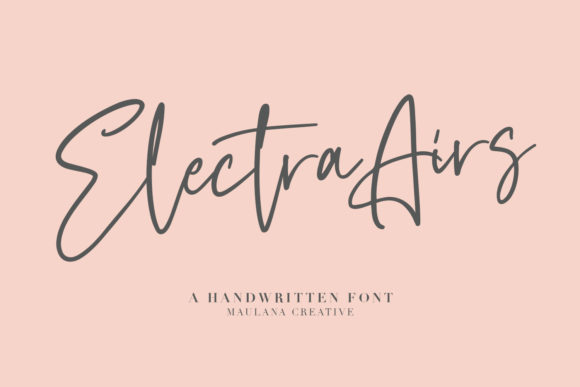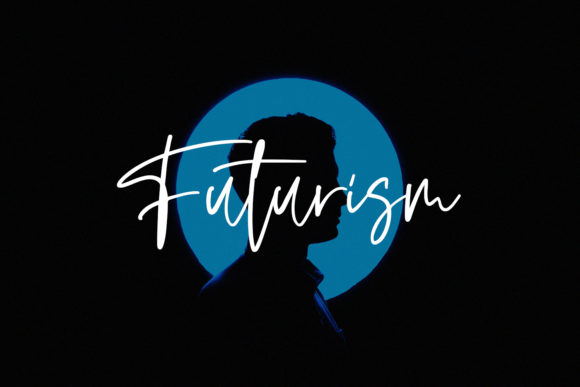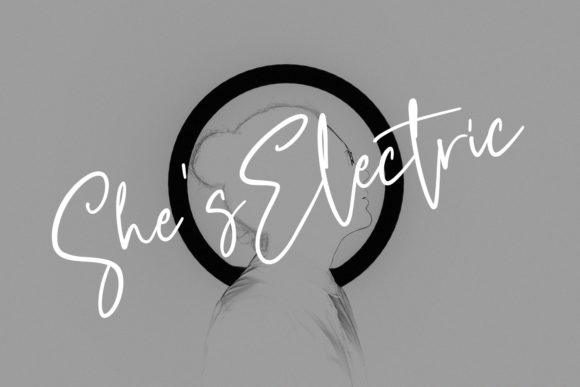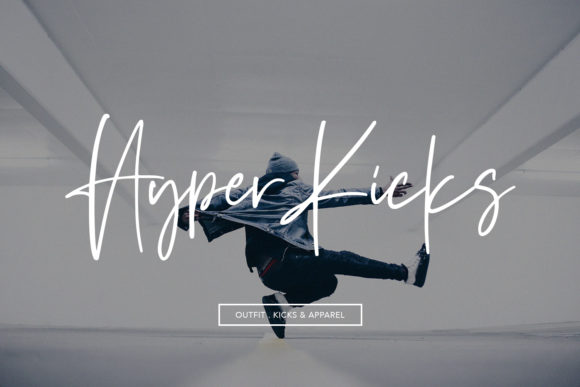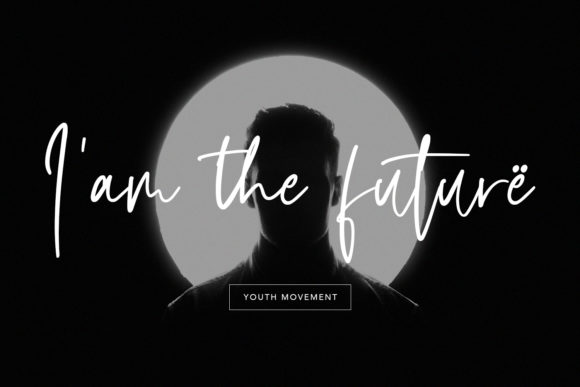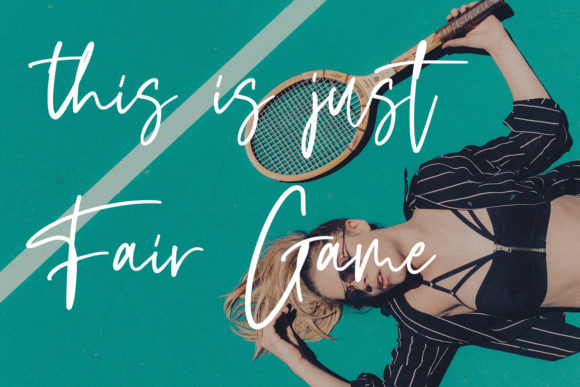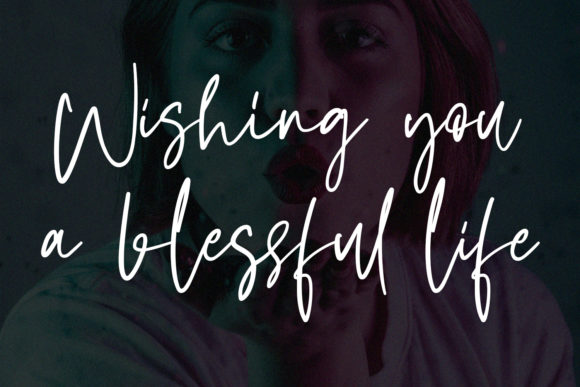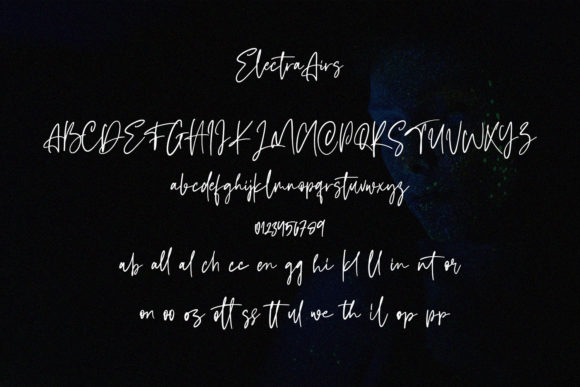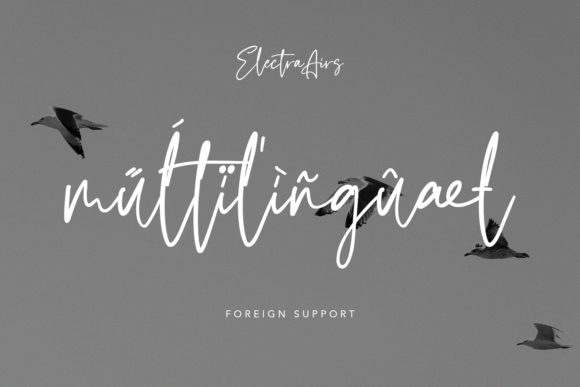
Electra Airs Font
About Electra Airs Font
Electra Airs is a cute, soft hand-lettered script font. Fall in love with its authentic feel and use it to create gorgeous wedding invitations, beautiful stationary art, eye-catching social media posts, and cute greeting cards.